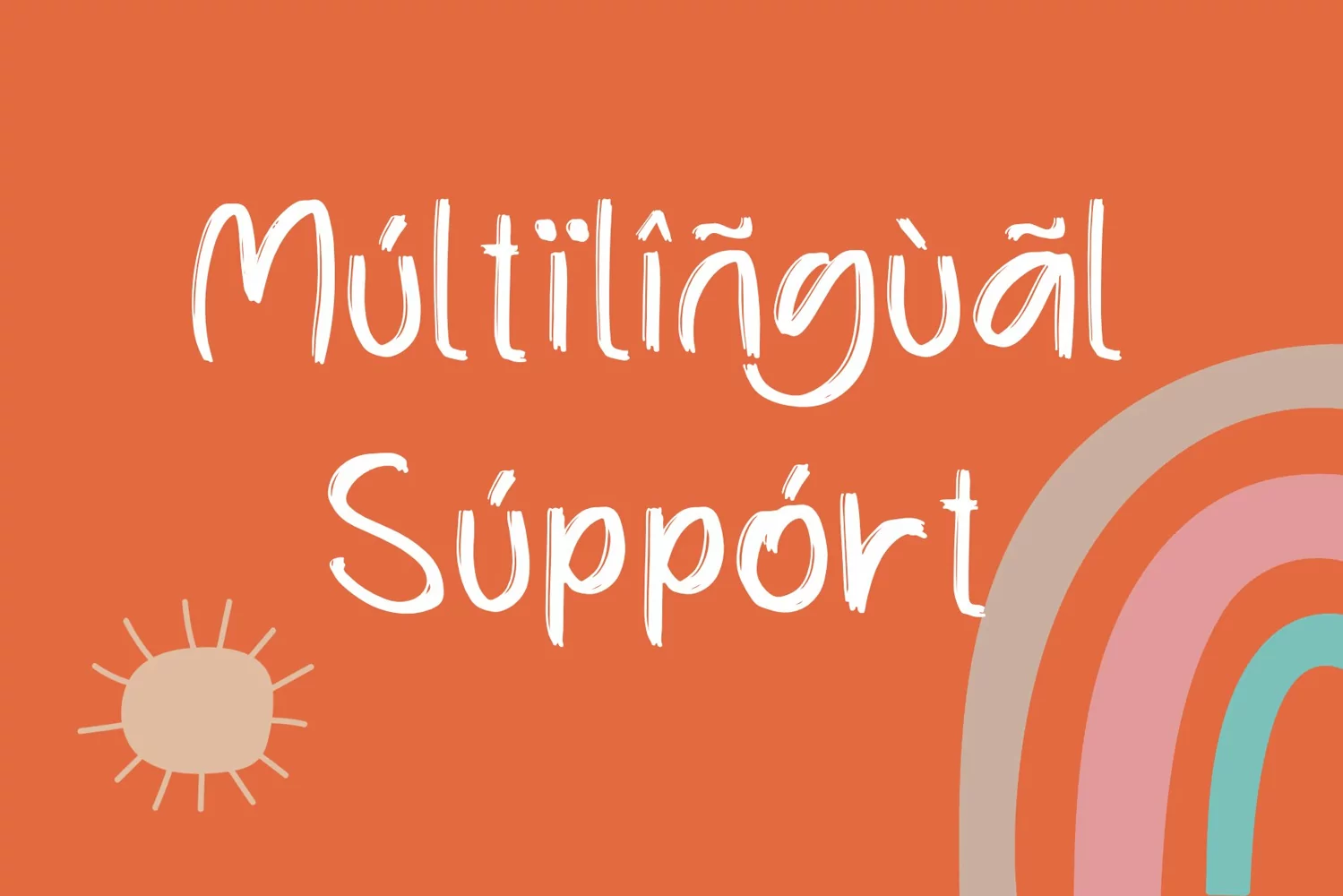
*Park Zoo Font*
This pair was inspired by Kids poster design that i saw on some coffee shop, It was crafted by hand specially to add natural handmade feeling in its brand identity than i make it clean with pentool.
Park Zoo font has 201 character set included
Park Zoo Font is very good looking in logo, labels, t-shirt prints, product packaging, invitations, advertising and others.